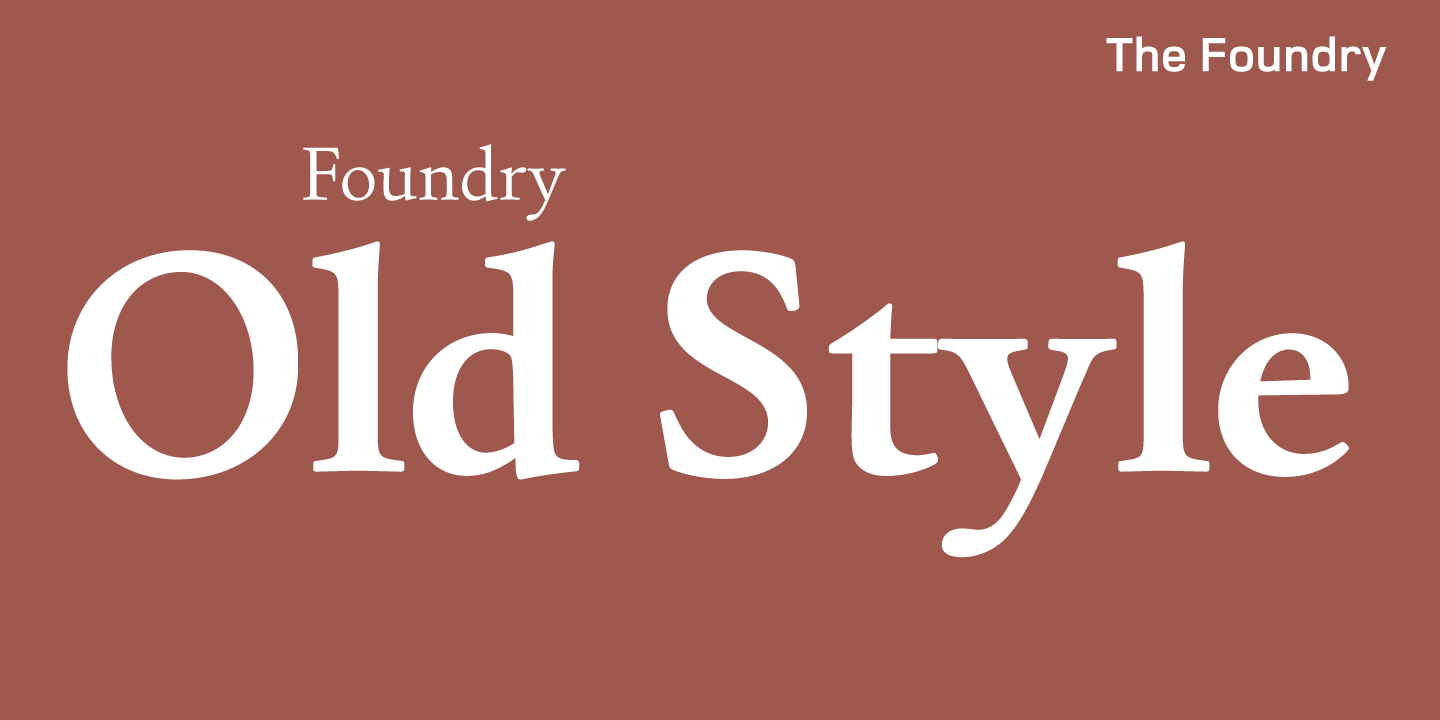
Foundry Old Style Font is ideal for heritage publishing houses, traditional newspaper layouts, scholarly academic journals, classic literature reprints, historical society publications, established law firm letterheads, university press materials, and distinguished institutional communications.
This font is exciting because it preserves the authentic craftsmanship of traditional typefounding with meticulously crafted letterforms that honor centuries of printing excellence and scholarly tradition. The Foundry Old Style Font embodies the dignity of classical typography and intellectual discourse, transforming ordinary text into distinguished communications that command respect and convey institutional gravitas.
The Foundry Old Style Font family includes traditional variations such as Regular, Bold, Italic, Bold Italic, Small Caps, Condensed, Extended, and Display versions, providing classical designers with comprehensive tools to create authentic traditional typography that maintains the highest standards of typographic excellence and scholarly presentation.
Honor typographic tradition with Foundry Old Style Font Free Download that brings classical publishing excellence to every serious literary project. This masterfully crafted typeface combines historical authenticity with contemporary functionality, making it perfect for academic institutions, publishing houses, and professional organizations requiring traditional credibility and scholarly appeal. The font's distinguished character design ensures optimal readability for extended reading while maintaining the dignified presence that serious content demands. Whether you're publishing academic journals, creating institutional materials, or designing traditional business communications, Foundry Old Style Font delivers the authoritative typography that establishes credibility and professionalism. Its versatile design works beautifully across both digital and print media while preserving the classical refinement that makes traditional communications feel genuinely scholarly and worthy of intellectual discourse in academic and professional environments where typography tradition and excellence matter most for establishing lasting credibility.